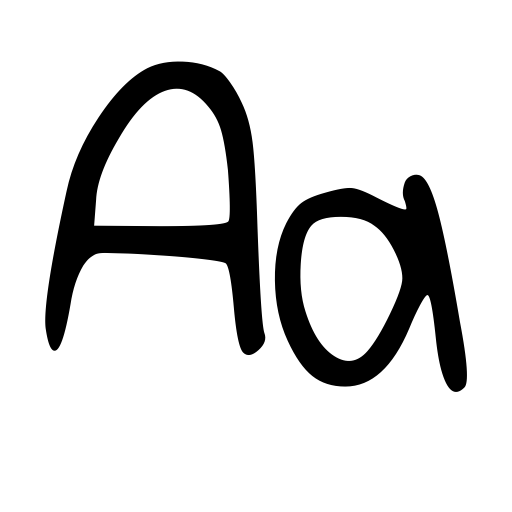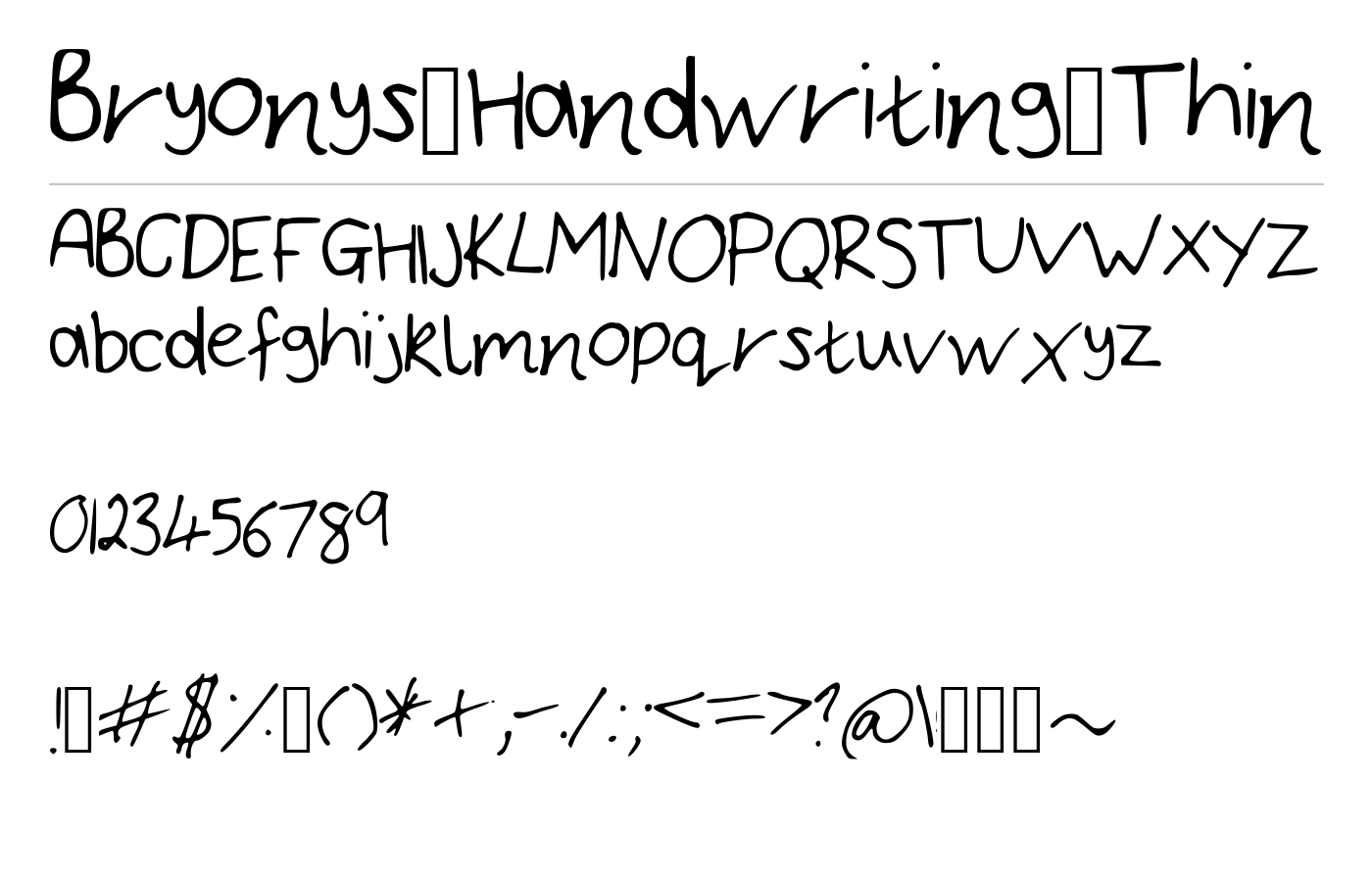
Bryonys Handwriting Thin is a playful, casual script font with a light weight and airy feel, mimicking natural handwriting with its uneven strokes and slightly tall x-height. Its irregular, friendly letterforms and simple, informal style make it ideal for personal, creative projects, invitations, or branding that seeks a approachable and human touch. This font works well in digital and print uses where a warm, handwritten aesthetic is desired without overwhelming the design.
Bryonys_Handwriting_Thin Font
About Bryonys_Handwriting_Thin Font